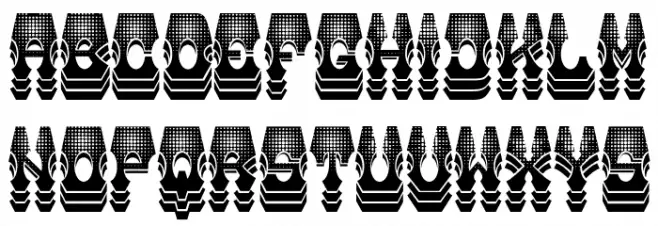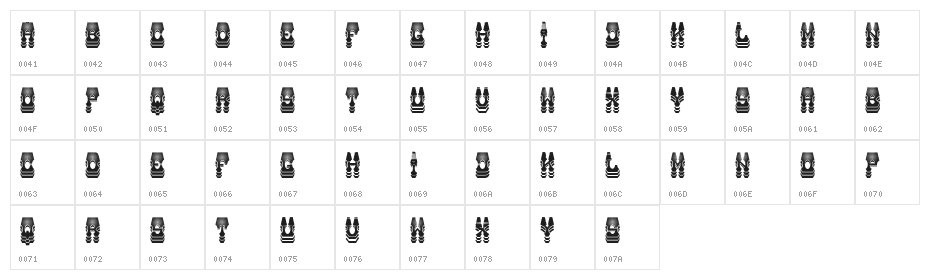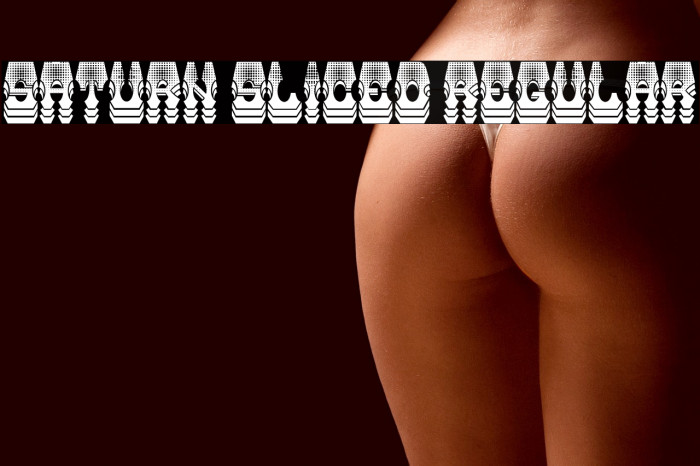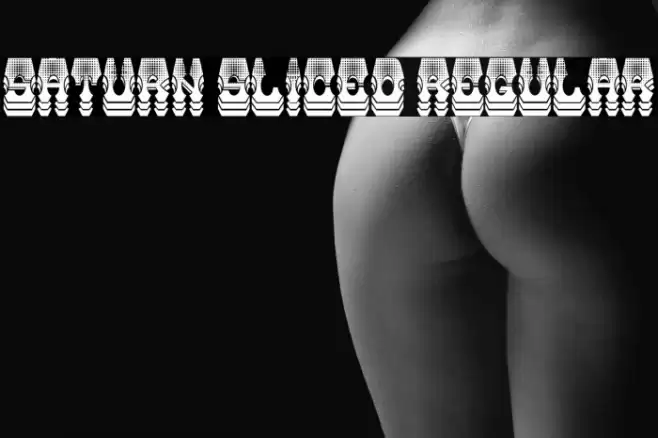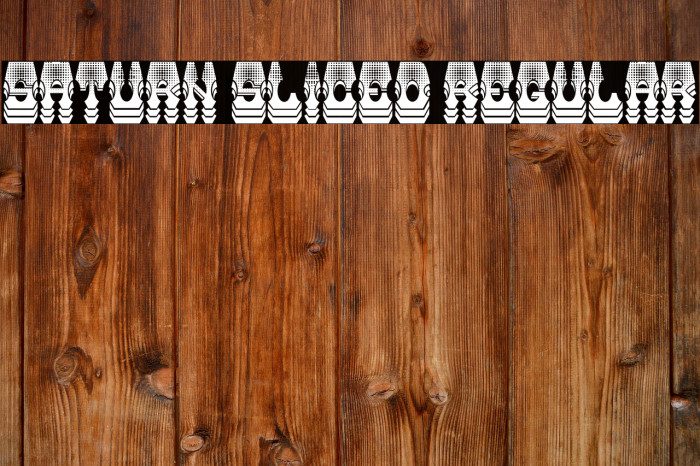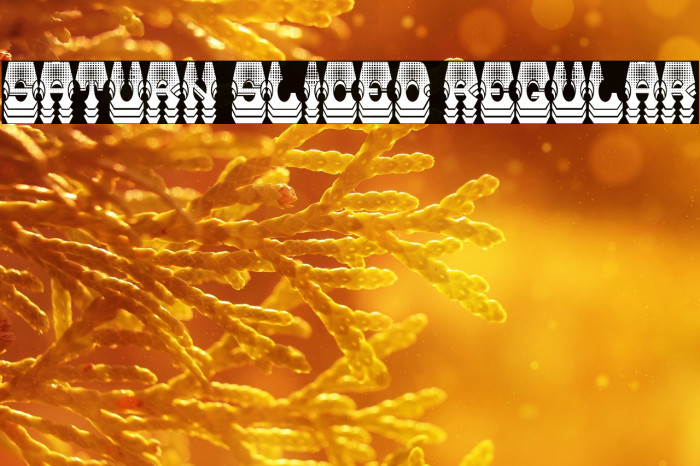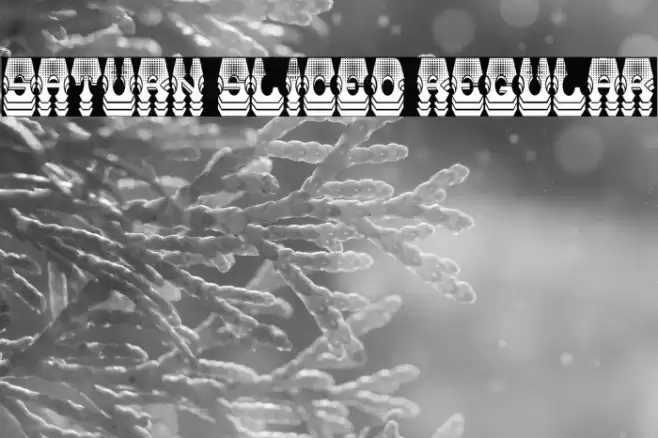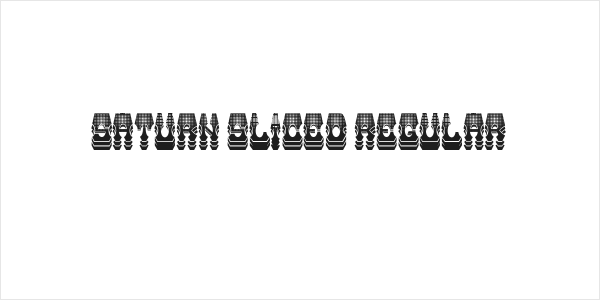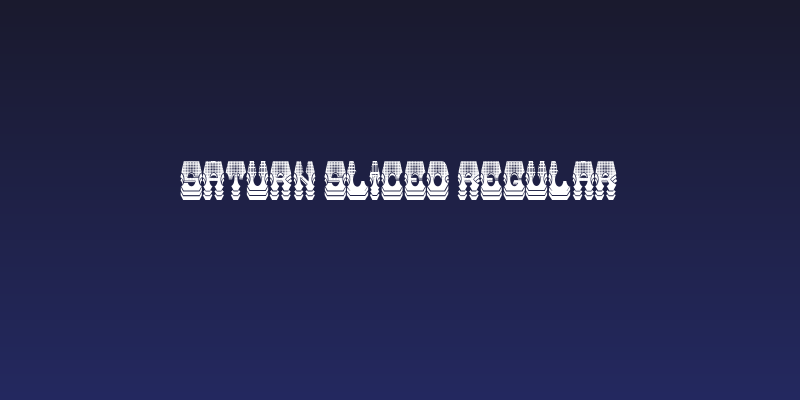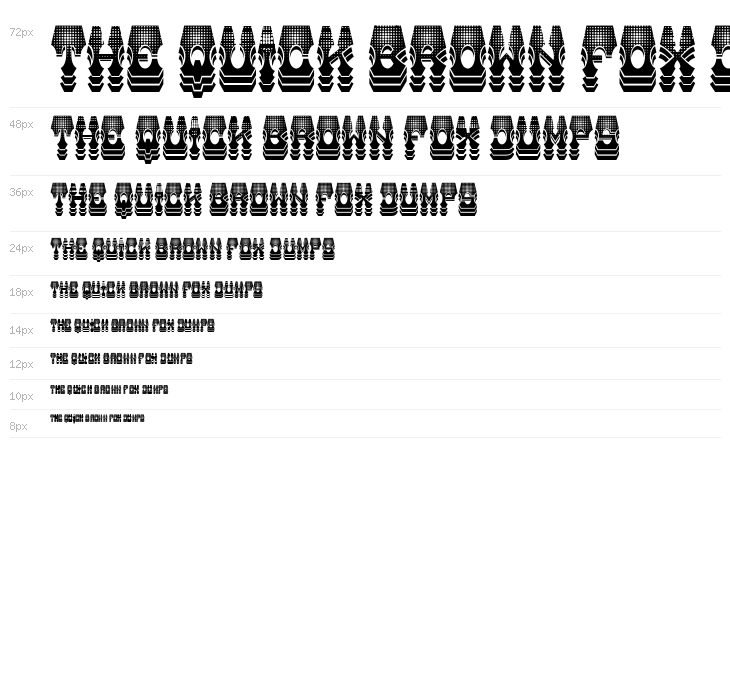
Saturn Sliced Regular Font
Saturn Sliced Regular Description
This font features a bold, futuristic design with a unique sliced effect that gives each character a layered, three-dimensional appearance. The geometric shapes and sharp angles create a striking visual impact, making it ideal for attention-grabbing headlines or logos. The characters are composed of multiple horizontal slices, each with a consistent thickness, contributing to a cohesive and modern aesthetic. The font's high contrast between the thick slices and the negative space enhances its readability while maintaining its distinctive style.
| Proposed Projects | Ideal for sci-fi themed projects, technology branding, video game titles, and modern poster designs. |